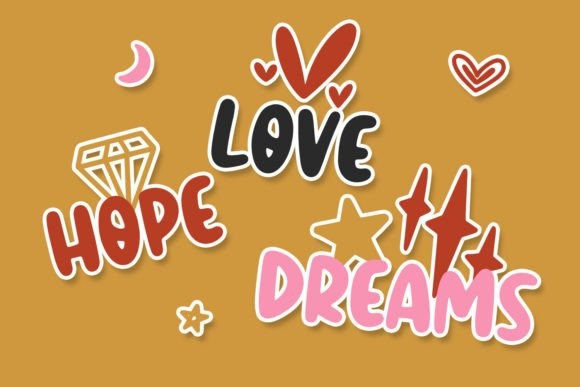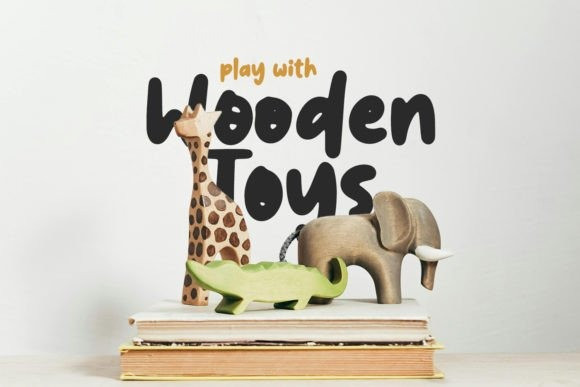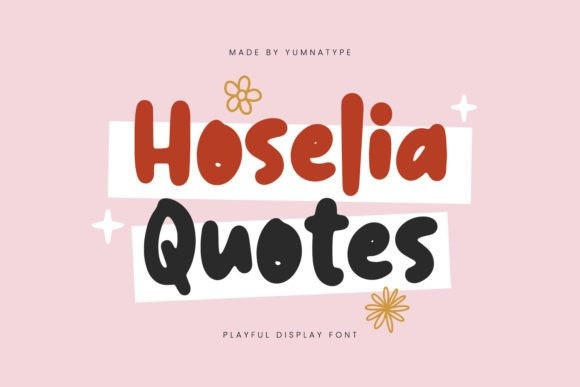
Hoselia Quotes Font
Hoselia Quotes Font is a delightful display font that infuses your text with whimsy and charm. The playful style of Hoselia Quotes brings a sense of fun and lightheartedness to your text Each letter is designed with rounded shapes, exuding a soft and friendly appearance that invites viewers to engage with your message. With its fairly thick weight and low contrast, Hoselia Quotes maintains a bold presence. For the best legibility you can use it in the bigger sizes text. As a bonus, this font gives hand drawn illustrations.